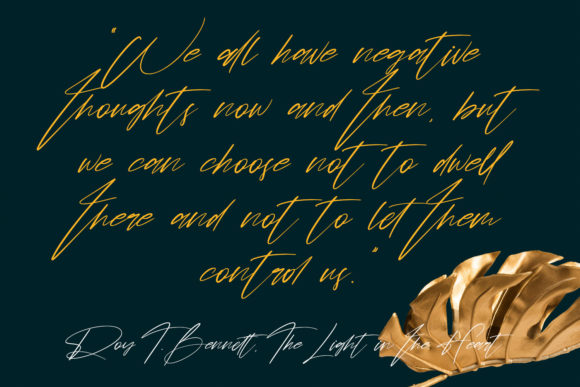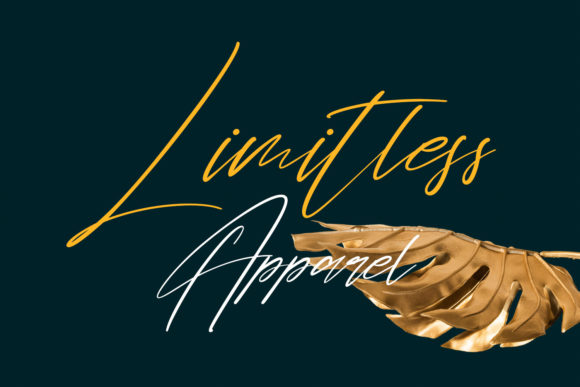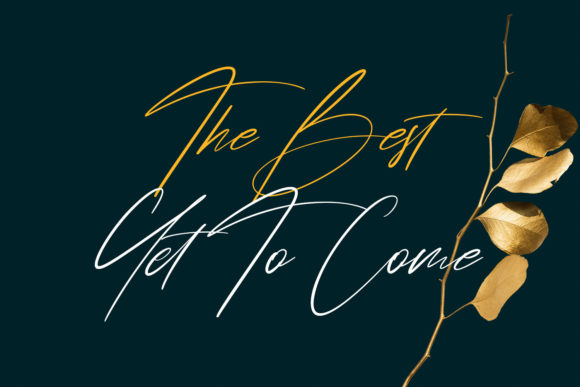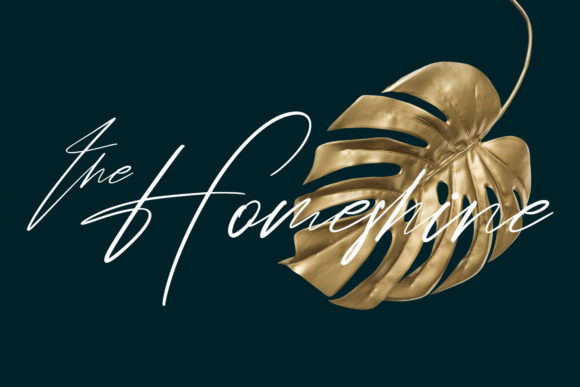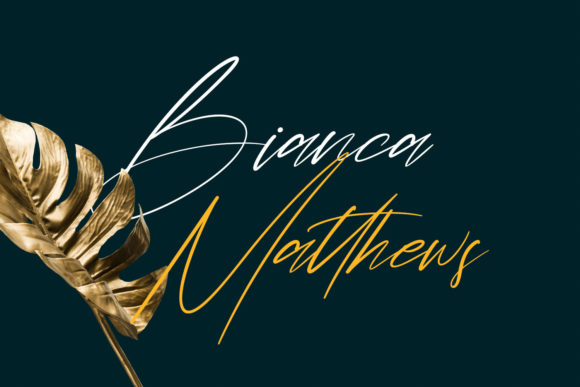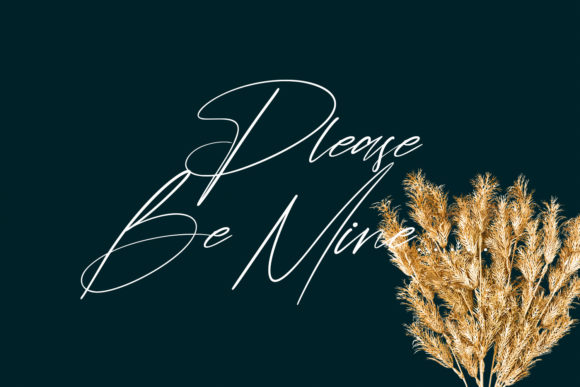
Introducing Blitz Pops Font: The Ultimate Expressive Signature Script Font
Are you tired of using the same old fonts in your design projects? Do you want to add a touch of personality and whimsy to your creations? Look no further than Blitz Pops Font, an expressive signature script font that’s sure to take your designs to the next level. With its high contrast strokes, fun characters, ligatures, and alternates, Blitz Pops is the perfect addition to any project.
What is Blitz Pops Font?
Blitz Pops is a unique and stylish script font that’s designed to make a statement. Its high contrast strokes give it a dynamic and expressive feel, while its fun characters and ligatures add a playful touch. Whether you’re working on a logo, branding project, or social media graphics, Blitz Pops is the perfect choice for designers and crafters who want to add a little extra flair to their designs.
Key Features of Blitz Pops Font
- High Contrast Strokes: Blitz Pops features high contrast strokes that give it a dynamic and expressive feel. This makes it perfect for designs where you want to make a bold statement.
- Fun Characters: The font comes with a range of fun and playful characters that add a touch of whimsy to your designs.
- Ligatures and Alternates: Blitz Pops also features ligatures and alternates, which allow you to customize your text and add a unique touch to your designs.
- Expressive and Versatile: Whether you’re working on a logo, branding project, or social media graphics, Blitz Pops is a versatile font that can be used in a variety of contexts.
Why Choose Blitz Pops Font?
So why should you choose Blitz Pops Font for your next design project? Here are just a few reasons:
- Adds Personality to Your Designs: Blitz Pops is a font that’s designed to add personality and whimsy to your designs. With its unique and playful characters, it’s the perfect choice for designers who want to stand out from the crowd.
- Easy to Use: Despite its complex and expressive design, Blitz Pops is surprisingly easy to use. Whether you’re a seasoned designer or just starting out, you’ll be able to get to grips with the font in no time.
- High-Quality Design: Blitz Pops is a high-quality font that’s been carefully designed to deliver exceptional results. With its clear and crisp lines, it’s perfect for use in both digital and print designs.
How to Use Blitz Pops Font in Your Designs
So how can you use Blitz Pops Font in your designs? Here are a few ideas to get you started:
- Logos and Branding: Blitz Pops is a great choice for logos and branding projects, where you want to make a bold and memorable statement.
- Social Media Graphics: The font is also perfect for social media graphics, where you want to add a touch of personality and whimsy to your posts.
- Invitations and Stationery: Blitz Pops is a great choice for invitations and stationery, where you want to add a touch of elegance and sophistication to your designs.
In conclusion, Blitz Pops Font is an expressive signature script font that’s perfect for designers and crafters who want to add a touch of personality and whimsy to their designs. With its high contrast strokes, fun characters, ligatures, and alternates, it’s a versatile font that can be used in a variety of contexts. Whether you’re working on a logo, branding project, or social media graphics, Blitz Pops is a great choice for anyone who wants to make a bold and memorable statement.